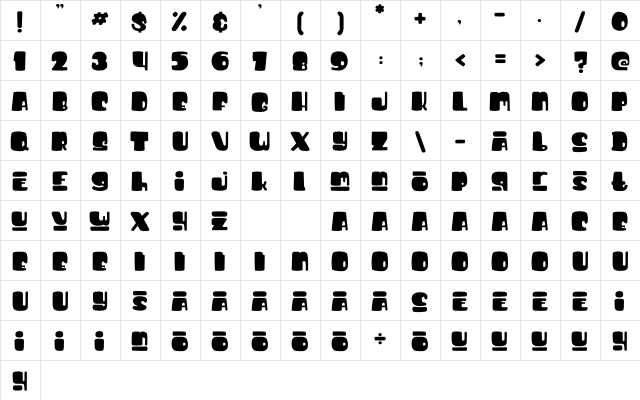
Bigfoot Demo Regular
| Designer | Rudy Muhardika |
Design Context for Bigfoot Demo Typeface
Bigfoot Demo is a composed and adaptable typeface that performs quietly and consistently across a wide range of design contexts.